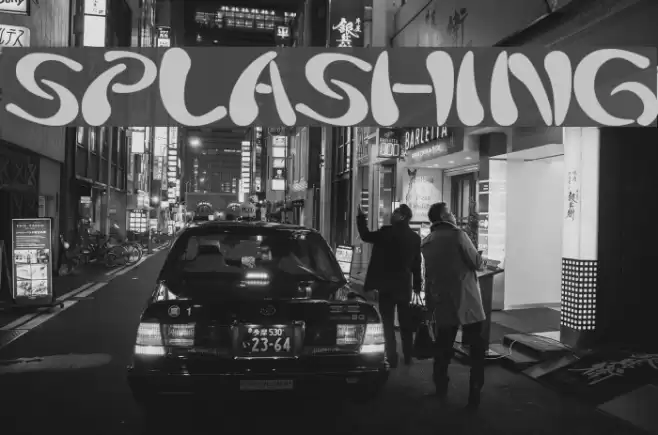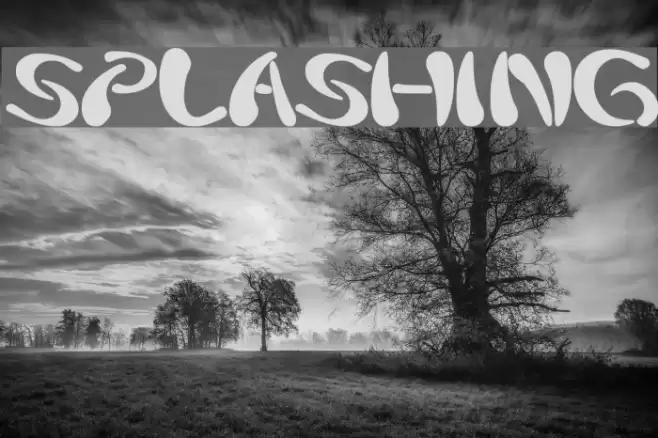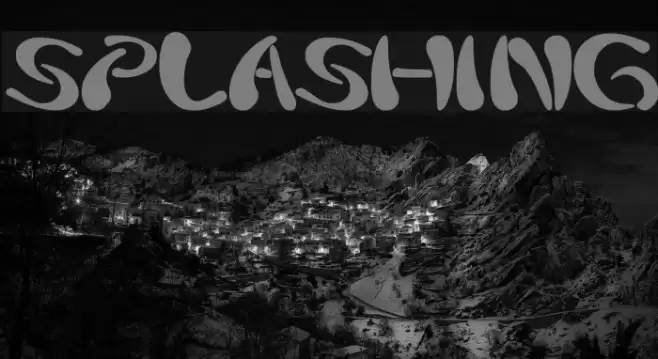
splashing Font
splashing Description
This font features a bold and playful design with a unique, fluid appearance. The characters are crafted with thick strokes that create a sense of movement and energy, reminiscent of splashes or droplets. Each letter is distinct, with rounded edges and varying stroke widths that contribute to its dynamic and lively aesthetic. The font's style is eye-catching and unconventional, making it suitable for creative and artistic projects. Its boldness ensures high visibility, while the playful curves add a touch of whimsy and fun.
A bold, playful font with fluid, splash-like characters from Uncategorized fonts.
- Proposed Projects: Ideal for creative projects such as posters, album covers, children's books, and branding for playful or artistic brands.